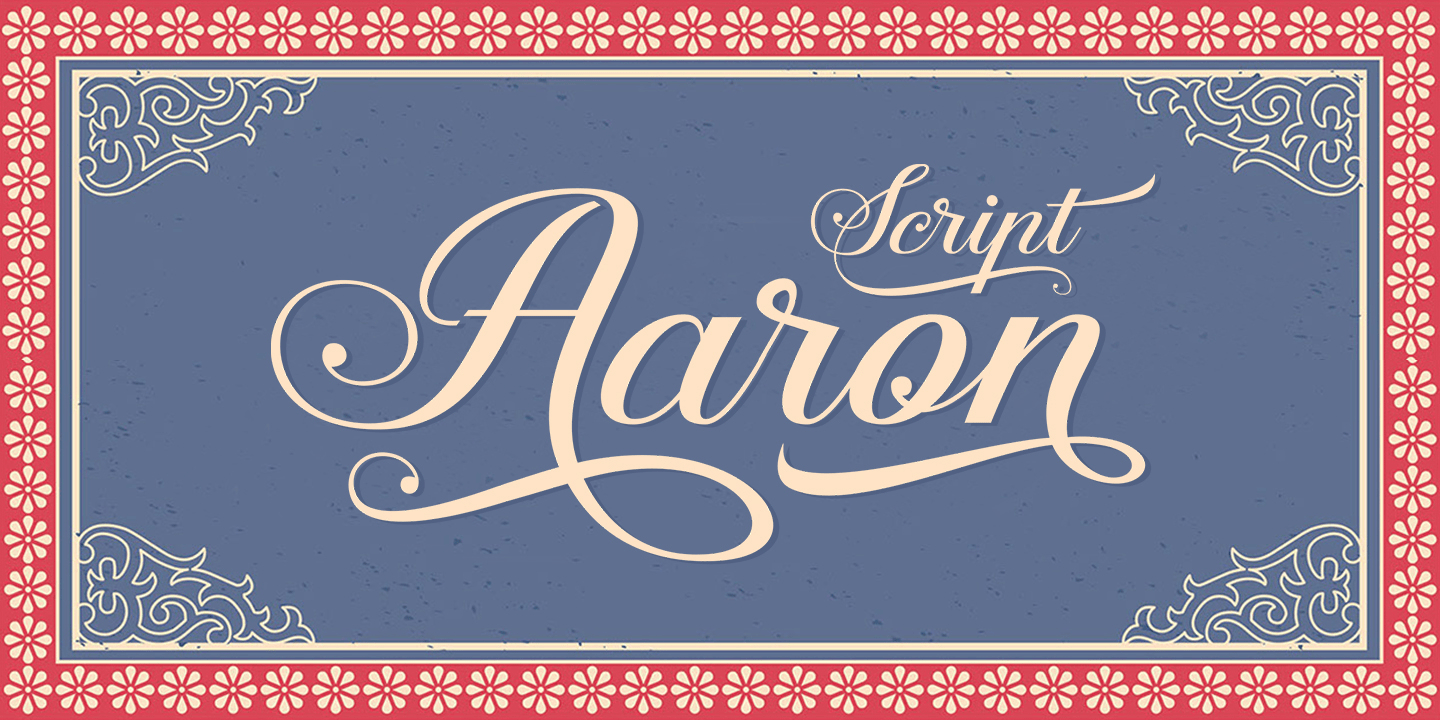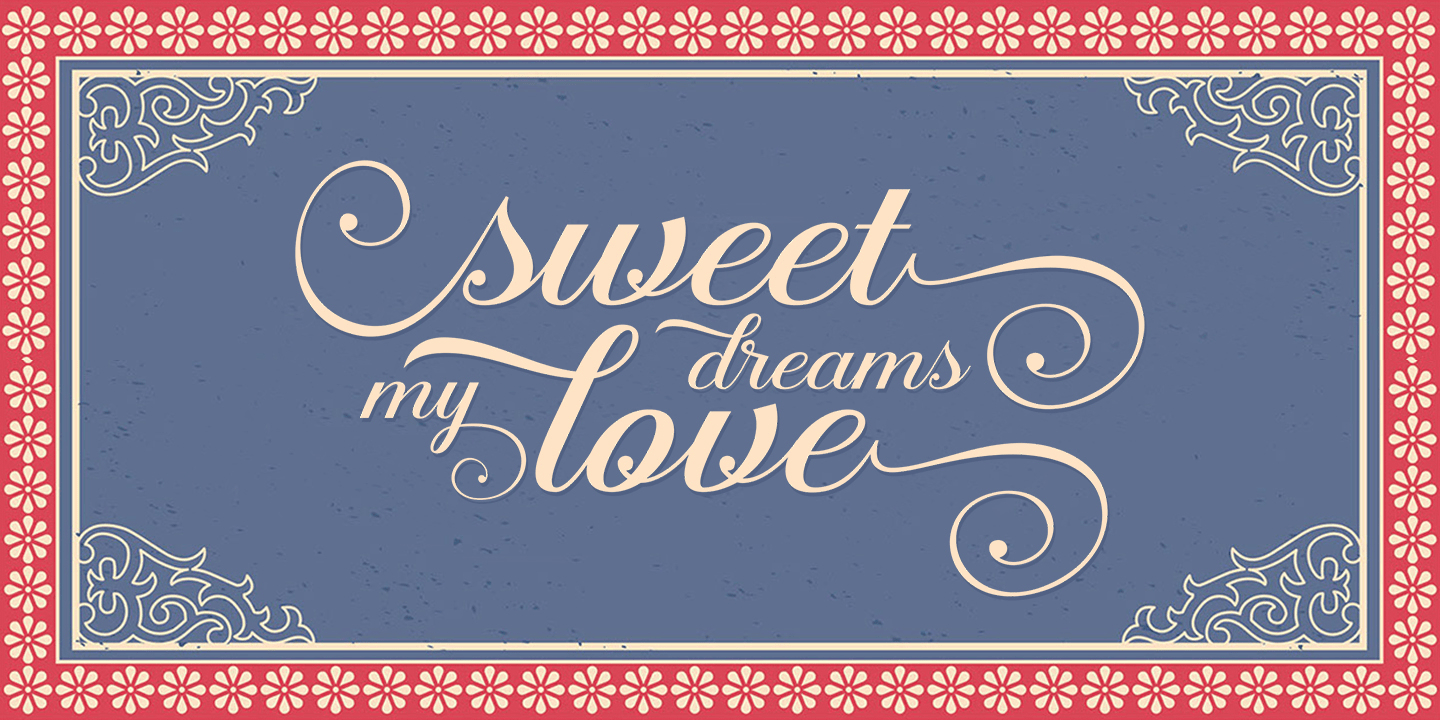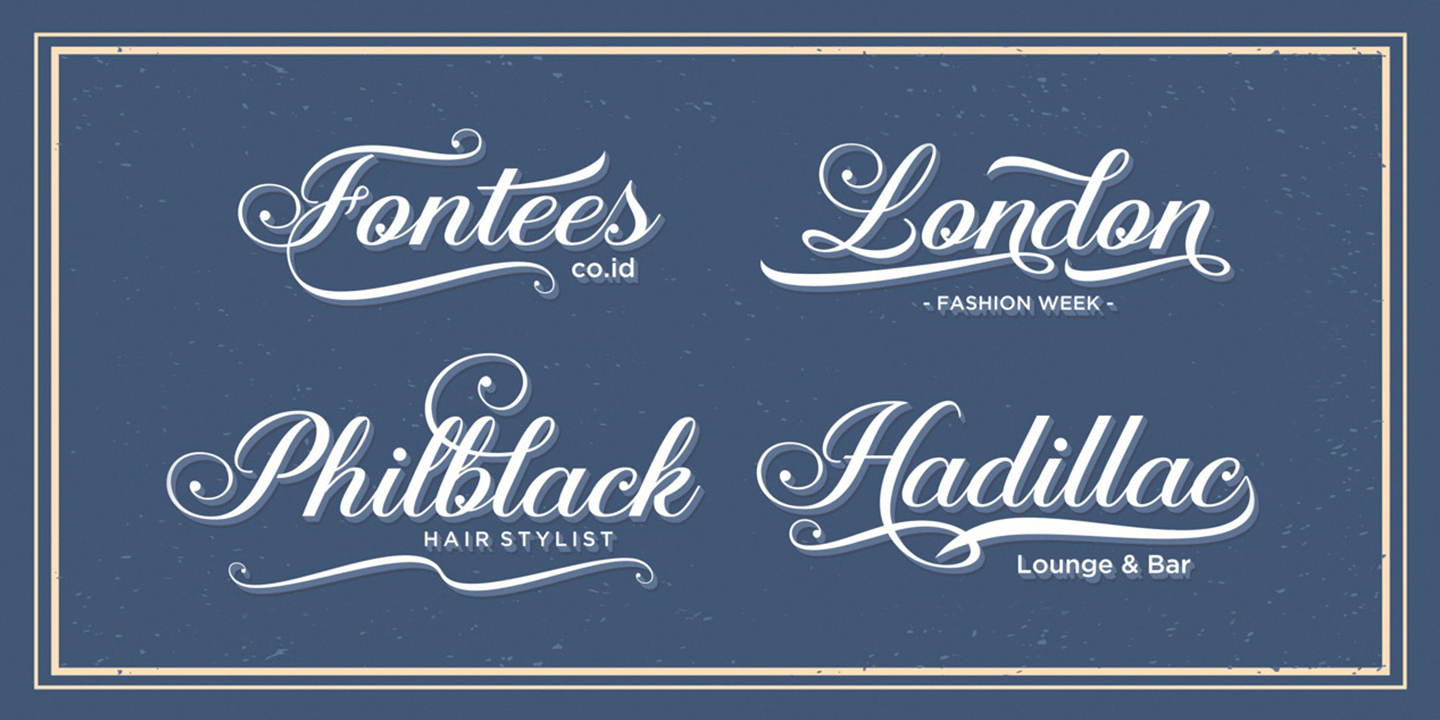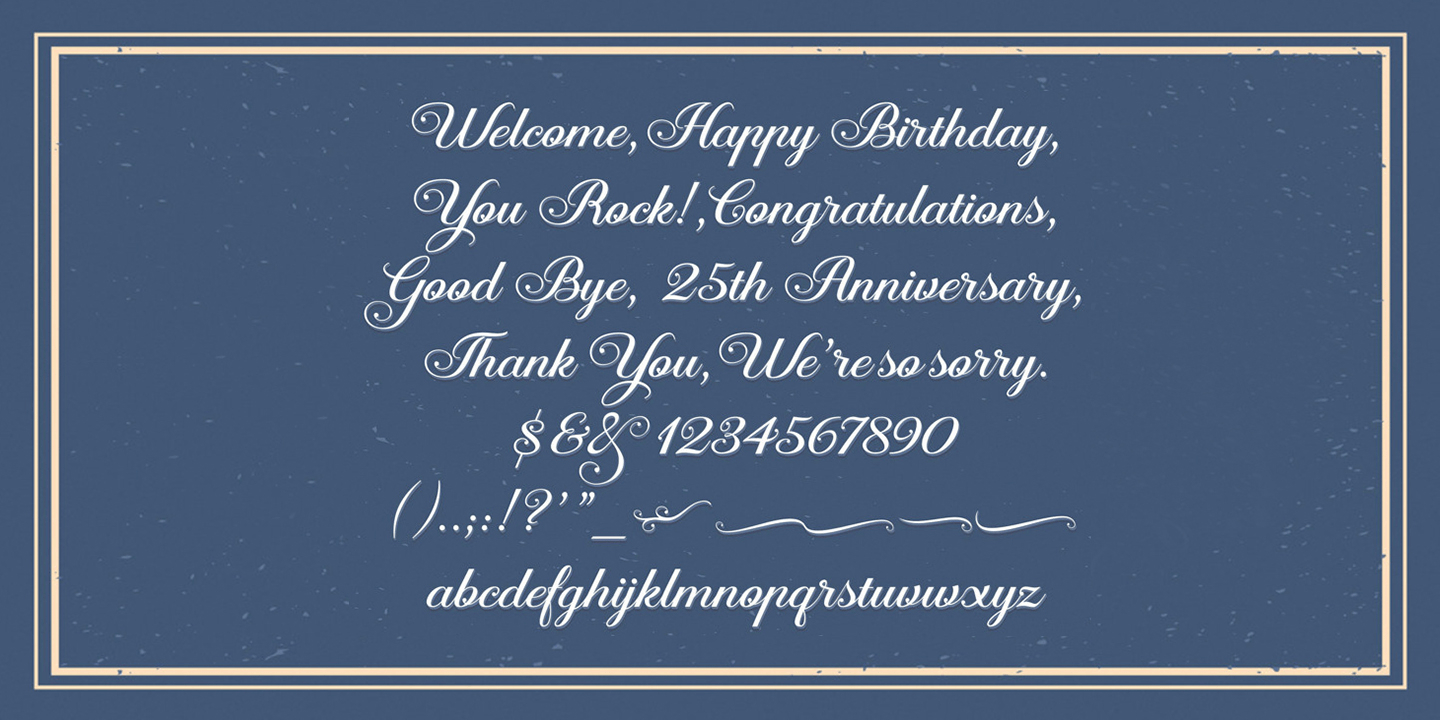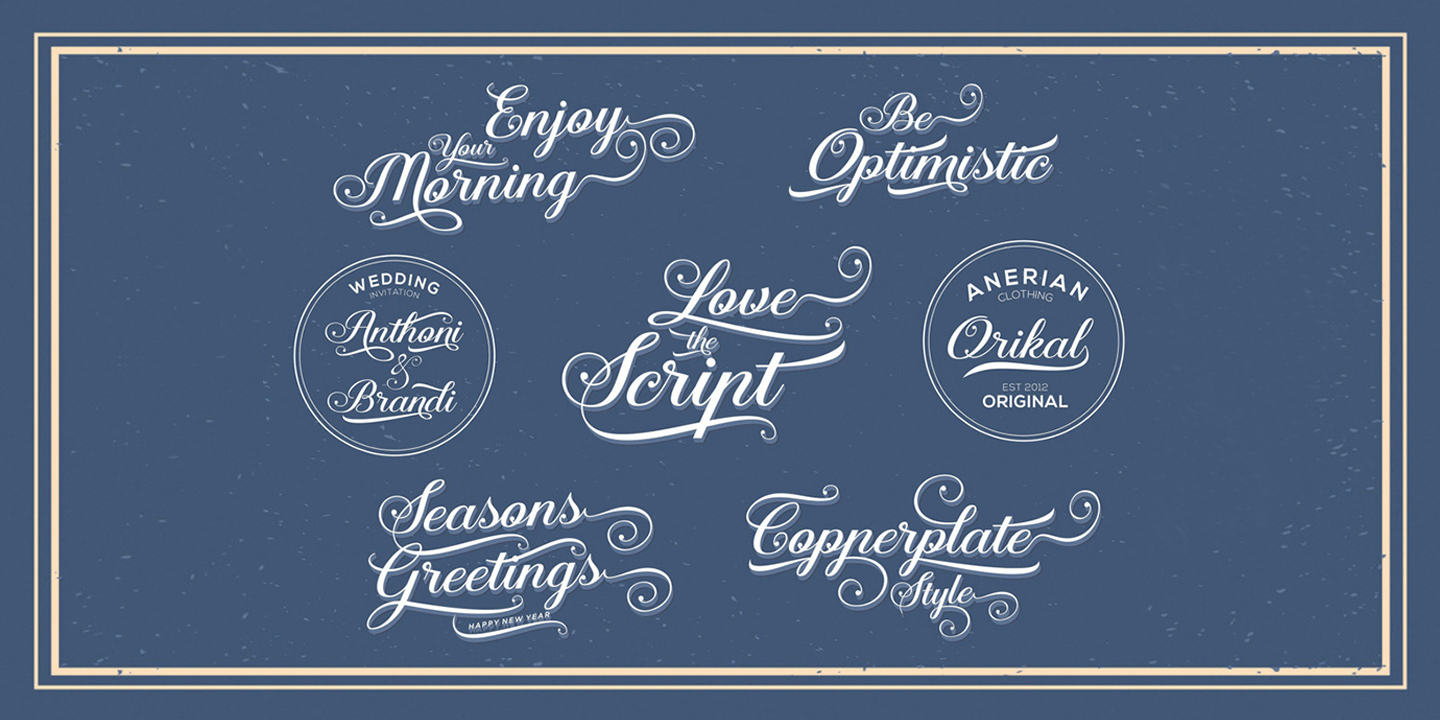
Aaron Script
Aaron Script is highly legible Script typeface, a simply beautiful, classy and elegant typeface. With almost 400+ glyphs and and 190 alternative characters, contain with opentype features. Stylistic alternates, Ornament, swash and more.
It can be used for various purposes such as logos, wedding invitation, t-shirt, letterhead, signage, news, posters, badges etc.